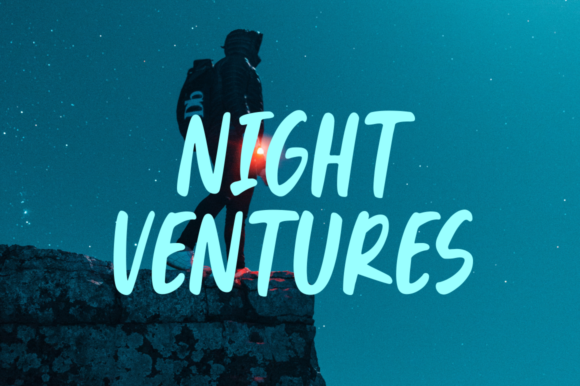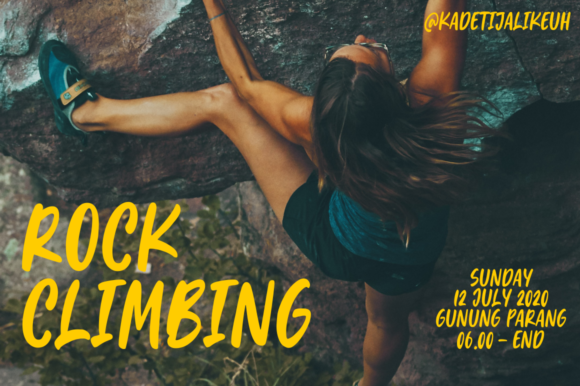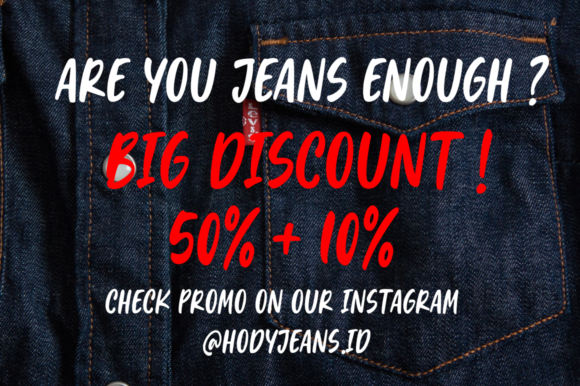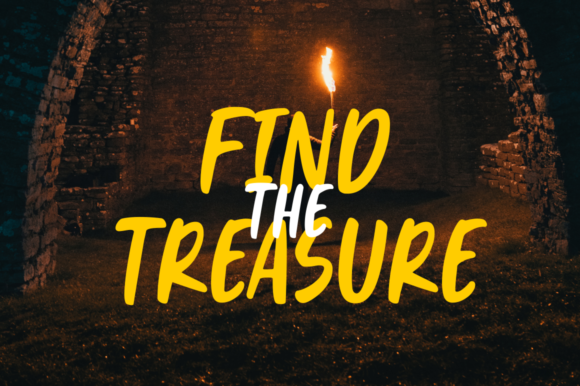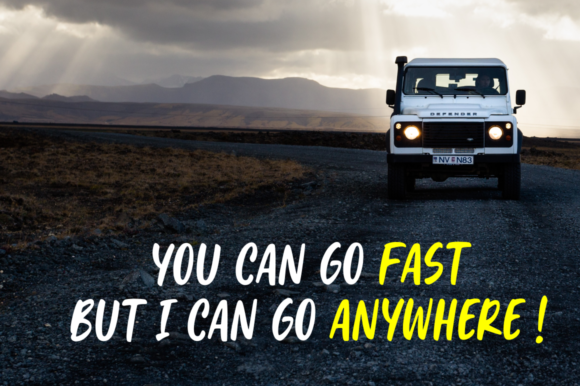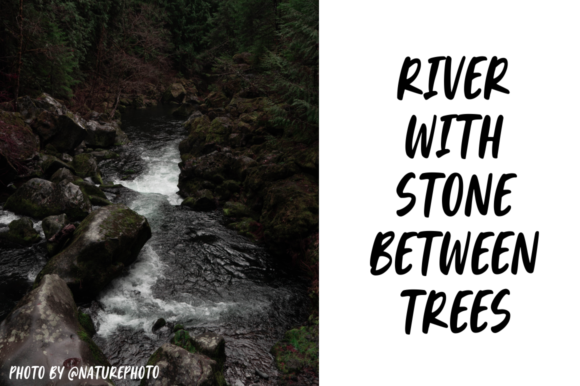
Introduction to Light in Brush Font
Light In Brush is a bold and neat lettered display font.
Add this font to your creative ideas and notice how it will make them stand out .
Key Features of Light in Brush Font
Why Choose Light in Brush Font?
Light in Brush Font offers exceptional quality and versatility, making it a valuable addition to your design toolkit. Whether you’re creating for personal projects or commercial use, Light in Brush Font delivers professional results.